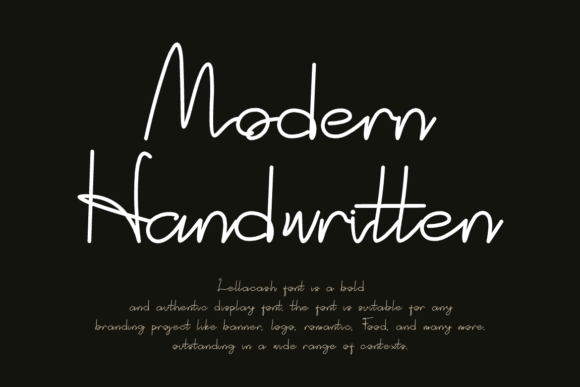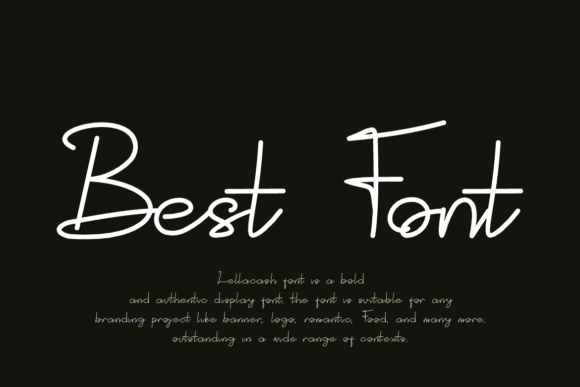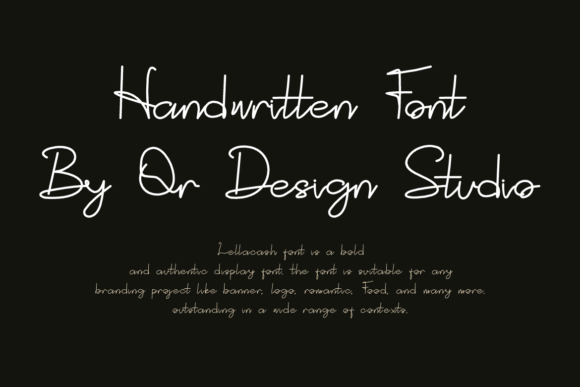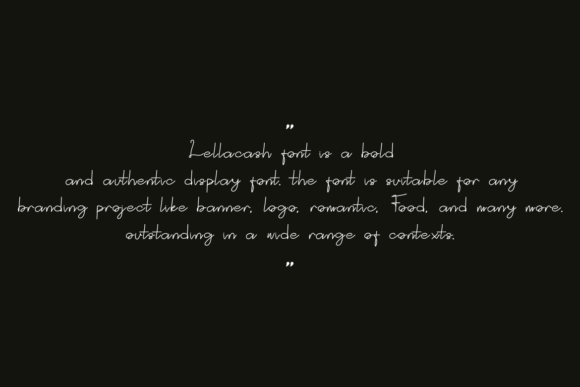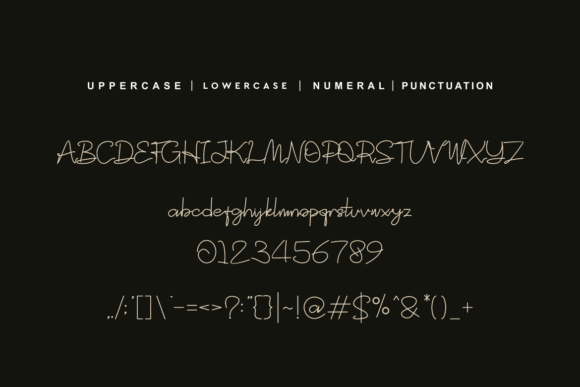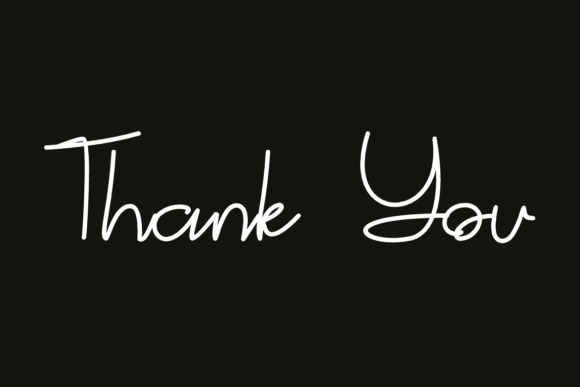
Introduction to Lellacash Font
The moment you land on a website that perfectly captures your attention, often lies in its creative use of typography. A bold, eye-catching font can elevate your brand’s identity and make it stand out in a crowded digital space. That’s where the Lellacash Font comes in – a high-quality display font designed to make your branding project shine.
Whether you’re working on a logo, social media graphics, or any other creative project, the Lellacash Font is an excellent choice. Its authentic and bold design is versatile enough to be used in a wide range of contexts, from digital to print. Plus, with its transparent background, you can easily place it over any image or background without worrying about distractions.
Key Features of Lellacash Font
- Transparent background, allowing for seamless integration with various design elements
- Designed with a unique aesthetic, perfect for adding a touch of elegance to any design
- Supports a wide range of languages, making it a valuable resource for multilingual designs
- High-resolution font, suitable for use in print and digital media up to 300 DPI
Honest Review: Lellacash Font
I recently stumbled upon the Lellacash Font, a free download that’s been making waves in the design community. As a designer, I was excited to give it a try and see if it lives up to the hype.
Here are some things that work well with the Lellacash Font:
- ✨ High-quality design: The font has a unique, hand-drawn feel that’s perfect for creative projects.
- ✨ Versatility: Lellacash Font can be used for a variety of purposes, from logos to typography-based designs.
- ✨ Transparent background: This makes it easy to customize and pair with other design elements.
- ⚠️ Limited font sizes: While the font is available in several styles, the range of font sizes is somewhat limited.
- ⚠️ Not ideal for body text: Due to its decorative nature, Lellacash Font may not be the best choice for large blocks of text.
Overall, I’m impressed with the Lellacash Font as a design resource. While it may not be perfect for every project, it’s a great addition to any designer’s toolkit. With a little creativity, it can add a unique touch to even the most mundane designs.
Lellacash Font is a high-quality, free download design resource ideal for creative projects. Its unique and modern style makes it a popular choice among designers and artists.
Tips for Getting the Most Out of Lellacash Font
Use the Lellacash Font in conjunction with a transparent background to create a modern and sleek design.
Experiment with different font sizes and styles to achieve the desired effect.
Common Use Cases for Lellacash Font
The Lellacash Font is ideal for use in logos, graphics, and presentations. It is also perfect for creating social media graphics and marketing materials.